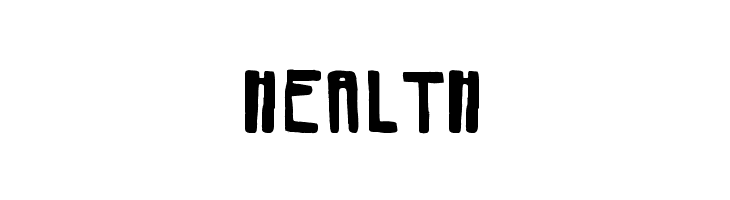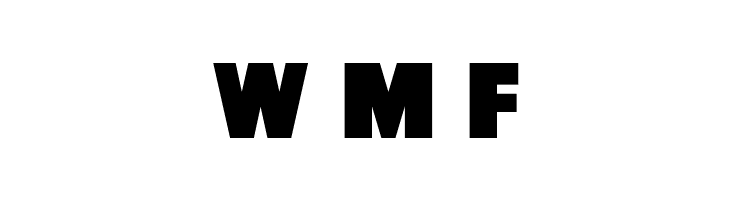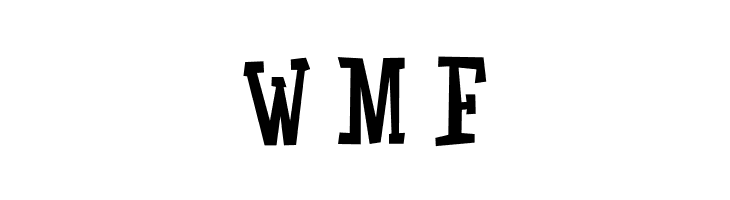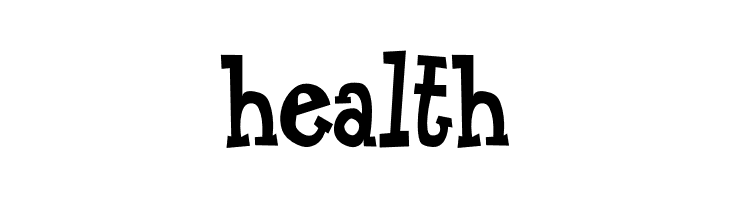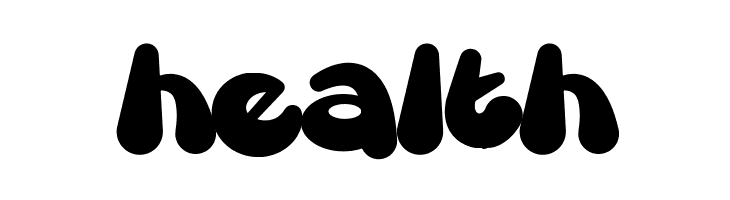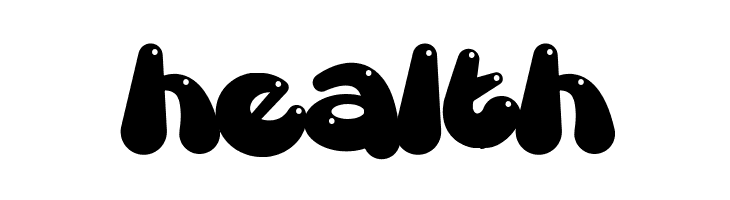
A bold, hand-drawn font with a rugged, distressed style.
A bold, blocky font with strong, impactful characters.
A bold, thick-stroked font with a strong and friendly presence.
A playful, bold font with a bubbly, cartoonish style and thick, rounded strokes.
A playful, bold font with rounded, cartoonish characters and a three-dimensional effect.